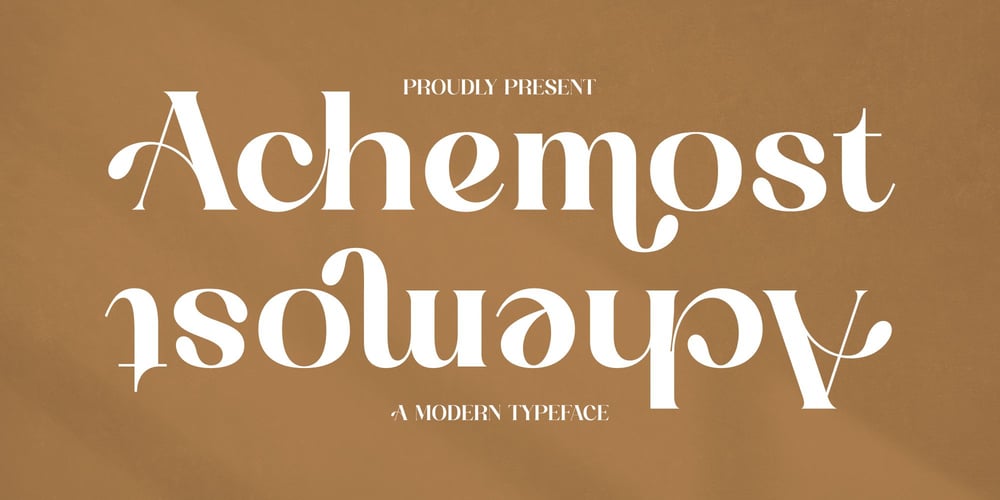
Achemost Font Family was designed by Heru Utama Putra and published by Letterena Studios. Achemost contains 2 styles and family package options. Achemost is a modern and classic serif typeface that has its own unique style & modern look. This typeface is perfect for an elegant & luxurious logo, book or movie title design, fashion brand, magazine, clothes, lettering, quotes, and so much more.